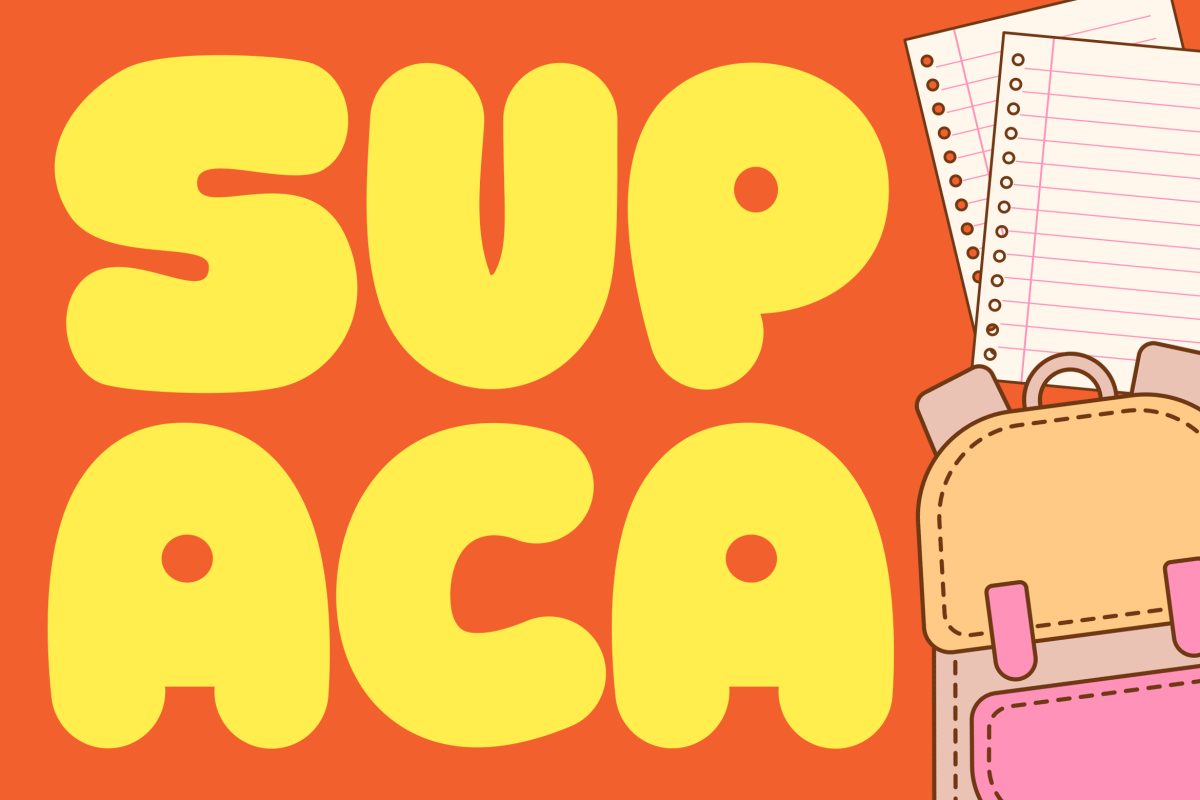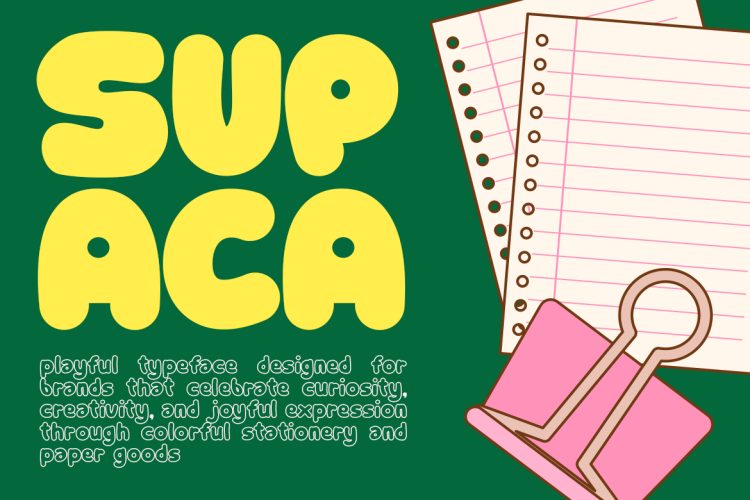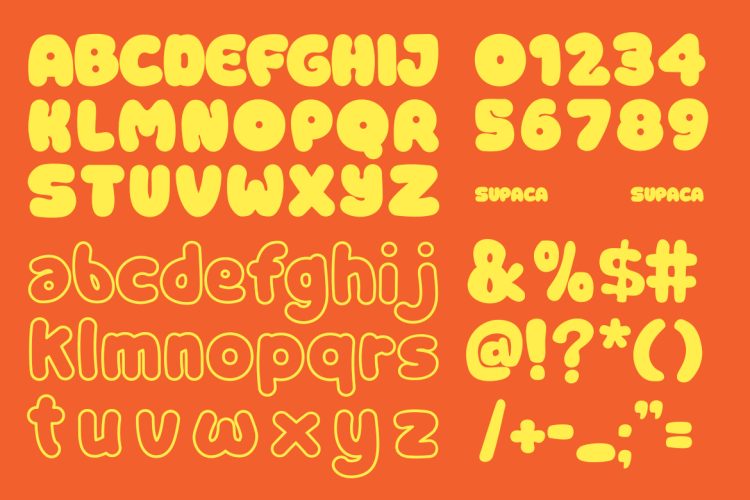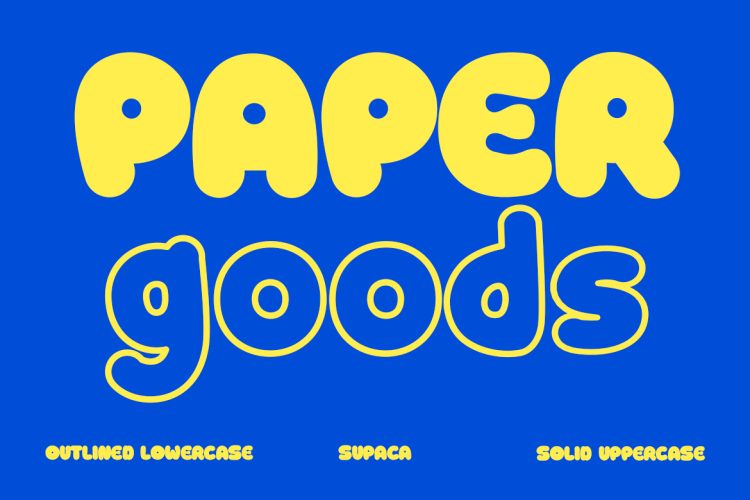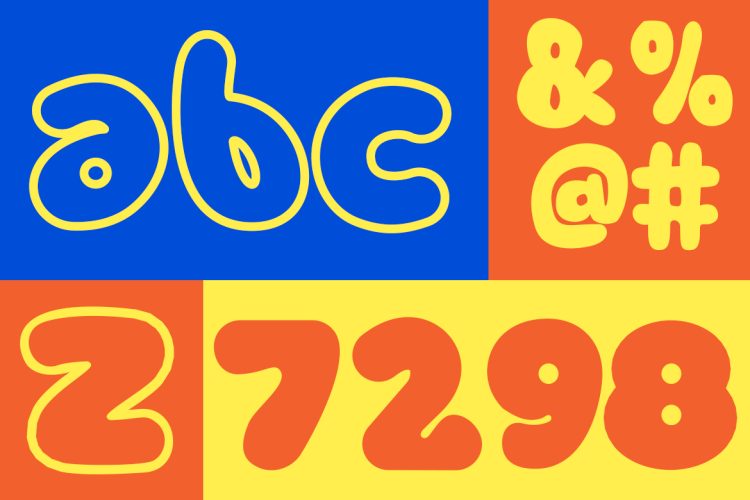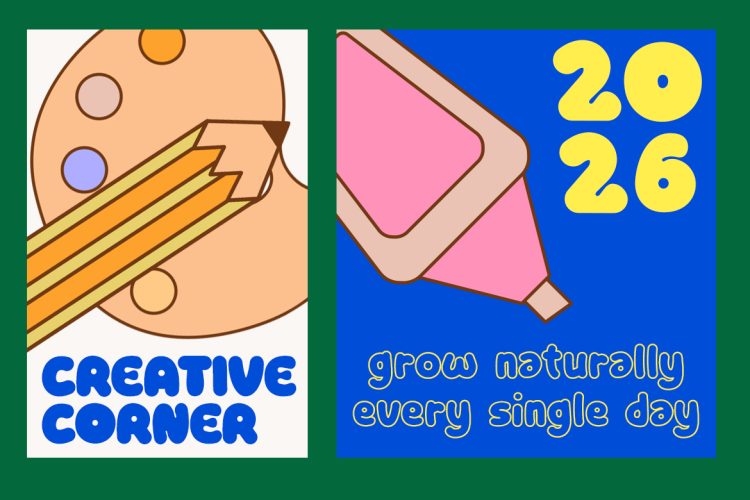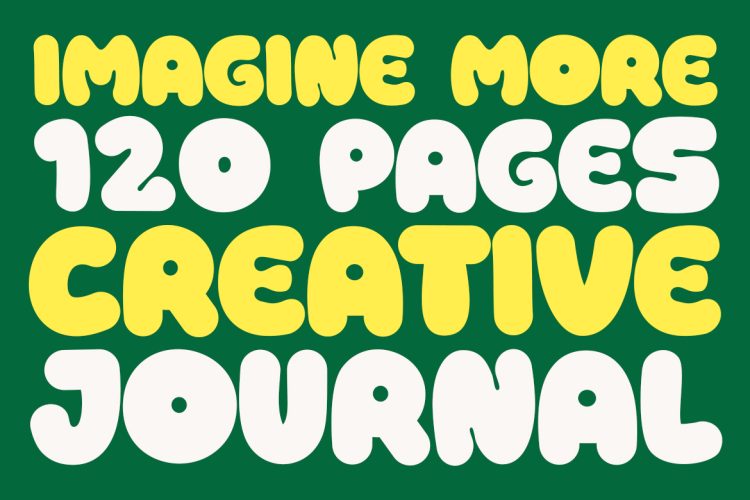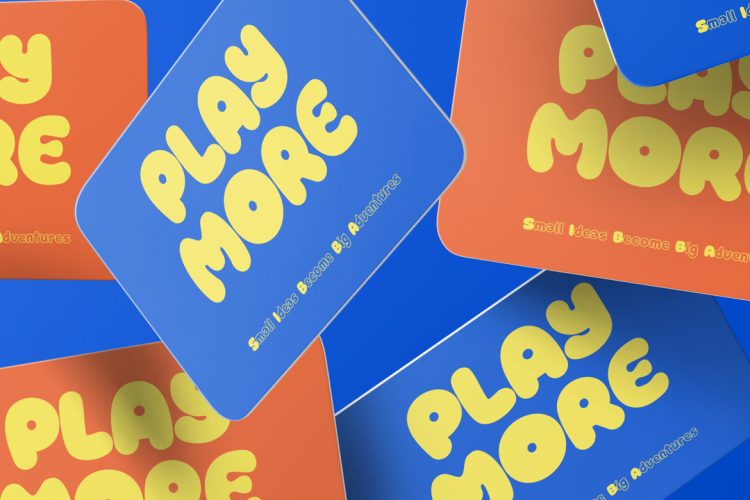
Kids Font Supaca
Kids Font Supaca โ€“ Bright Bubble Display Font for Kids Branding & Playful Creative Projects
Kids Font Supaca is a cheerful bubble display font designed to fill every project with joy, energy, and bold personality. Featuring chunky rounded letterforms, soft curves, and a smooth handcrafted feel, this font creates a fun visual style that’s both eye-catching and easy to read. Moreover, its playful shapes instantly add warmth and excitement, making every headline feel friendly and unforgettable. As a result, your designs stand out with a vibrant, happy character that appeals to all ages.
Why You’ll Love It
Additionally, Supaca is made for creators who love colorful, expressive typography. Its rounded forms blend perfectly with playful illustrations, bright palettes, and modern layouts. Whether you’re designing kids products, educational materials, stationery, packaging, or social media graphics, this font adapts effortlessly. Furthermore, its bold appearance keeps messages clear even at a glance. Besides that, the bubbly style creates an inviting look that brings more life to every design. Therefore, your creative projects become more memorable, engaging, and full of fun.
Kids Font Supaca Perfect For
Kids branding, school projects, educational books, stationery, notebooks, toy packaging, stickers, posters, classroom decorations, social media graphics, YouTube thumbnails, event invitations, creative logos, merchandise, and colorful marketing materials.
Make Every Design Burst with Fun
Finally, let Kids Font Supaca turn simple words into playful masterpieces. Not only does it add bold personality, but it also creates a warm and friendly impression that people remember. So, add it to your collection today and bring more fun to every creative project.
Cute, chunky, and full of happy vibes! Supaca makes every word pop with playful bubble style that’s impossible to ignore.